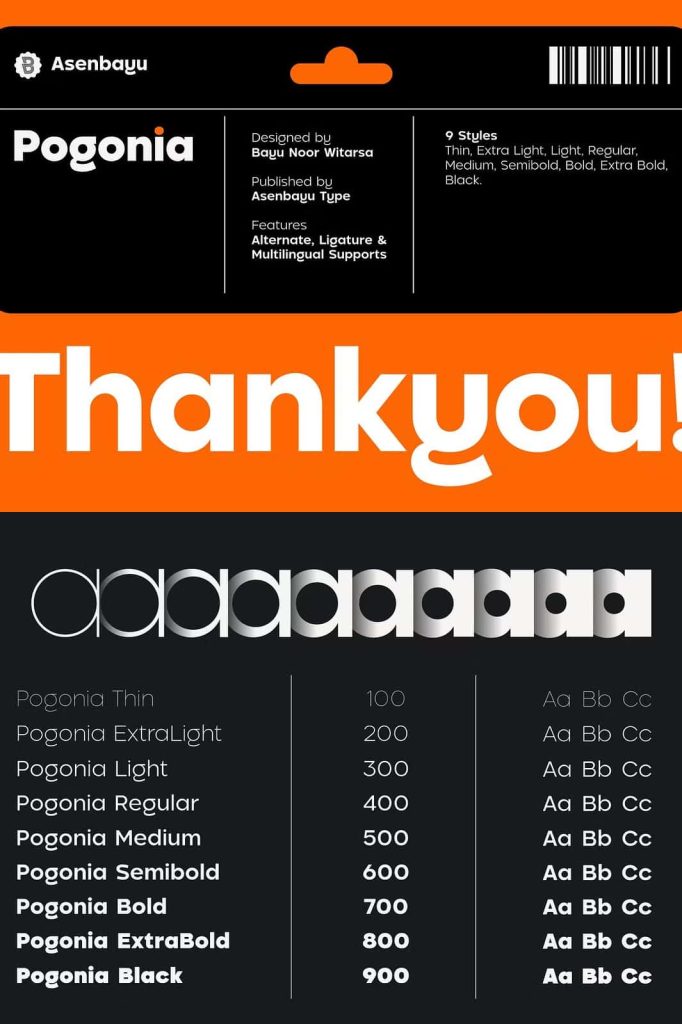
Pogonia Sans Serif Font – A Modern Typeface for Timeless Creative Design
Pogonia Sans Serif Font is a modern and aesthetically refined typeface that combines geometric precision with humanist warmth. Designed to deliver clarity, versatility, and contemporary appeal, Pogonia provides an exceptional typography solution for designers seeking a clean and sophisticated visual identity. Its balanced structure allows it to perform beautifully across a wide range of creative applications, making it a valuable asset for branding, advertising, digital media, and print design.
With its elegant proportions and carefully crafted letterforms, Pogonia creates a strong visual presence while maintaining excellent readability. The font embraces modern design principles while preserving a timeless character that ensures your projects remain relevant and appealing for years to come. Whether used in bold headlines, stylish logos, engaging social media content, or professional websites, Pogonia delivers a polished and contemporary appearance that enhances every design.
A Perfect Balance Between Geometric and Humanist Design
One of Pogonia’s most distinctive qualities is its harmonious blend of geometric structure and humanist influences. The geometric foundation provides consistency, balance, and modern sophistication, while the humanist elements introduce warmth, personality, and natural readability. This unique combination allows Pogonia to feel both professional and approachable, making it suitable for a diverse range of industries and creative projects.
The clean lines and thoughtfully designed curves create a visual rhythm that helps content appear organized and attractive. Designers can confidently use Pogonia in both minimalist and expressive layouts while maintaining a cohesive and refined aesthetic.
Build Strong and Memorable Brand Identities
Typography plays a crucial role in establishing a recognizable brand, and Pogonia Sans Serif Font provides the flexibility needed to create impactful visual identities. Its modern appearance communicates confidence, innovation, and professionalism, making it an excellent choice for businesses that want to stand out in competitive markets.
Whether you are developing a startup brand, refreshing an established company identity, or creating a personal portfolio, Pogonia helps communicate your message with clarity and style. Its versatile design allows it to adapt effortlessly to different branding strategies, from luxury and fashion-focused visuals to technology and creative industry applications.
Popular Applications for Pogonia Sans Serif Font
- Logo Design and Brand Identity
- Fashion and Lifestyle Branding
- Social Media Graphics
- Advertising Campaigns
- Website Design and User Interfaces
- Editorial Layouts
- Creative Posters
- Marketing Materials
- Digital Presentations
- Packaging Design
Create Eye-Catching Posters and Marketing Materials
Pogonia excels in poster design and promotional materials where strong visual communication is essential. Its clean structure and modern character help create impactful headlines that capture attention while maintaining a professional appearance. Designers can use the font to establish clear visual hierarchies, making information easier to read and understand.
Whether promoting events, products, services, or creative campaigns, Pogonia enhances the effectiveness of marketing materials through its bold yet sophisticated presence. The font helps create designs that feel contemporary, engaging, and memorable.
Enhance Social Media and Digital Content
In today’s digital landscape, strong typography can significantly improve engagement and brand recognition. Pogonia Sans Serif Font performs exceptionally well across social media platforms, digital advertisements, and online marketing campaigns. Its clean letterforms remain highly readable on screens of all sizes, ensuring consistent visual quality across desktop and mobile devices.
Content creators, marketers, and designers can use Pogonia to develop cohesive social media branding, create attractive promotional graphics, and maintain a professional visual identity across multiple digital channels. Its modern style helps content stand out while preserving a clean and organized appearance.
Ideal for Fashion and Contemporary Design Projects
The elegant simplicity of Pogonia makes it particularly well suited for fashion, beauty, and lifestyle brands. Its refined aesthetic communicates sophistication and modernity without appearing overly decorative. This balance allows fashion labels, creative agencies, and luxury brands to create premium visual experiences that resonate with contemporary audiences.
From lookbooks and product catalogs to online stores and marketing campaigns, Pogonia contributes to a polished and cohesive brand presentation. Its versatility allows designers to experiment with various layouts while maintaining a strong sense of elegance and professionalism.
Whether you are creating a distinctive logo, designing attractive posters, building a fashion brand, enhancing social media content, or developing a modern website, Pogonia provides the flexibility and sophistication needed to achieve professional results. Its timeless appeal ensures that your designs remain stylish, relevant, and visually impactful for years to come.